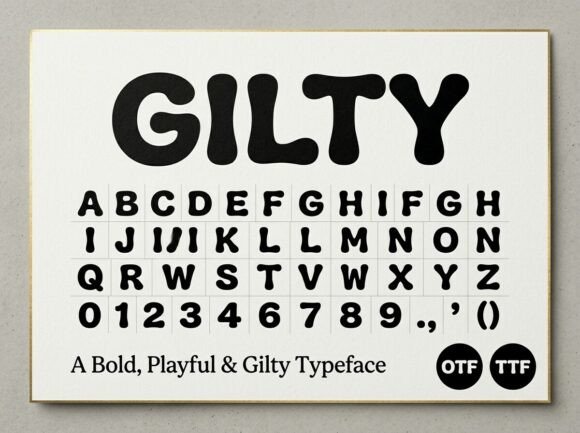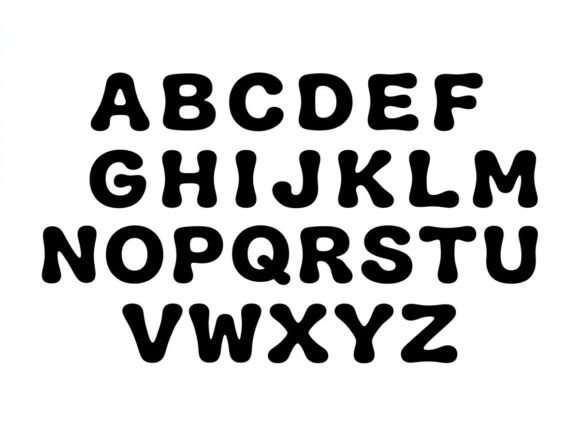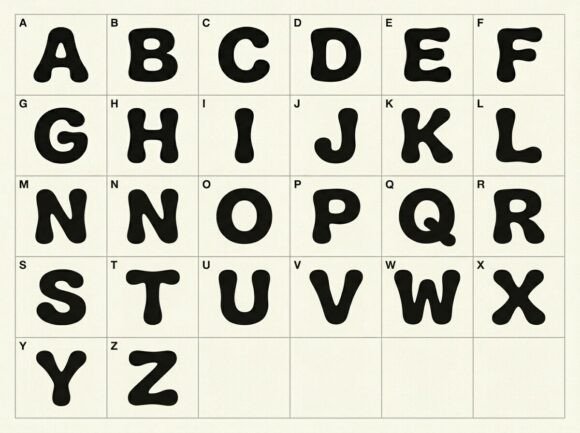
Enter the Gilty Font, a stunning decorative display font designed to be the center of attention. This unique font is perfect for creators who want to break away from the ordinary and make a lasting impression. With its strong visual personality and artistic elements, the Gilty Font is an invaluable asset for designers seeking to create bold headlines, artistic logos, and creative packaging.
- Font Family: Gilty Font is a modern sans-serif font family designed for digital use.
- Font Size: Gilty Font is available in 6 weights: Light, Regular, Medium, SemiBold, Bold, and Black.
- Unique Characteristics: Gilty Font features a unique blend of modern and minimalist design elements, making it perfect for digital interfaces and branding.
- Language Support: Gilty Font supports a wide range of languages, including Latin, Cyrillic, and Greek scripts.
- Unique, Hand-Drawn Style: The Gilty Font has a distinct, hand-drawn feel that sets it apart from more traditional fonts.
- Highly Versatile: This font is suitable for a wide range of projects, from logos and branding to editorial and advertising content.
- Easy to Read: Despite its unique style, the Gilty Font is surprisingly easy to read, making it a great choice for long-form content.
- Limited Character Set: The Gilty Font has a relatively small character set, which may limit its use for certain projects or languages.
- Not Ideal for Small Text: While the font is easy to read at larger sizes, it may not be the best choice for small text or body copy.
Overall, I think the Gilty Font is a solid choice for designers looking for a unique, hand-drawn font. While it may have some limitations, its versatility and readability make it a great addition to any design arsenal.
Tip: Use Gilty Font for creating eye-catching headings and titles in your designs.
Tip: Use Gilty Font for creating custom typography and graphics in your designs.
Tip: Use Gilty Font for creating engaging presentations and documents.
Gilty Font is perfect for:
- Creating eye-catching headings and titles.
- Designing custom typography and graphics.
- Adding a unique touch to presentations and documents.